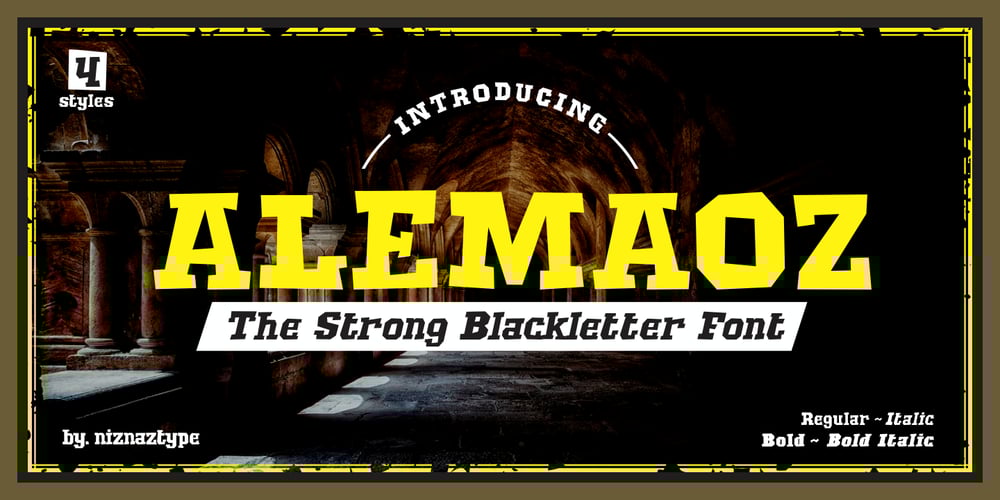
Alemaoz Font Family was designed by Muhammad Nazarudin and published by Niznaztype. Alemaoz contains 4 styles and family package options. Introducing Alemaoz as a blackletter font with strong and bravecharacter. Alemaoz suitable for design that take a themes like thedarkness world, gothic, metal, horror or creepy, underground, rockand music themes. And for indoor and outdoor design such asposter, headline, wallpainting, tshirt, tittle of event, mural and others.Alemaoz can give a different style and rising a quality of designsAlemaoz consist of :- Uppercase- Lowercase- Numeral and punctuation- Multilingual LanguagePlease, enjoy it with my new blackletter font, AlemaozThank a lot